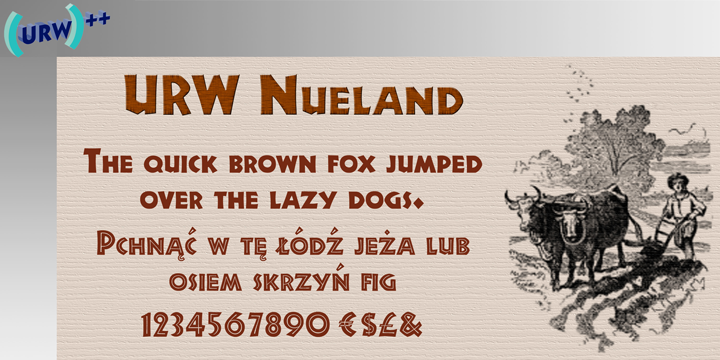
Nueland Font is perfect for sustainable brands, eco-friendly companies, organic product packaging, environmental campaigns, green technology firms, nature conservation organizations, renewable energy projects, outdoor adventure companies, and any project requiring typography with fresh ecological spirit and innovative environmental aesthetics.
What makes Nueland Font exciting is its pioneering sustainability that captures the essence of new ecological frontiers and environmental innovation with clean letterforms inspired by renewable energy and green technology advancement. This forward-thinking typeface embodies the optimistic vision of sustainable future with organic curves and efficient geometry that reflect the harmony between human innovation and natural ecosystems. The font's environmental character and progressive appeal make it perfect for brands leading the transition to sustainable practices and ecological responsibility.
The Nueland Font family includes light, regular, and bold weights, featuring complete uppercase and lowercase alphabets, numerals, punctuation marks, and eco-inspired design elements. The font maintains consistent environmental harmony throughout all weights while ensuring excellent readability for both inspiring headlines and informative text applications in sustainability and green technology contexts.
Whether you're designing for environmental organizations, creating sustainable product branding, or developing green technology marketing with ecological aesthetics, Nueland Font Free Download brings authentic environmental consciousness and innovative sustainability to your projects. This exceptional typeface transforms ordinary text into powerful statements of ecological responsibility that inspire positive environmental action and celebrate the future of sustainable living. The font's progressive character makes it ideal for clean energy, organic brands, and environmental advocacy. Download this remarkable font today and bring the pioneering spirit of ecological innovation to your design projects with authentic environmental sophistication and sustainable design excellence.